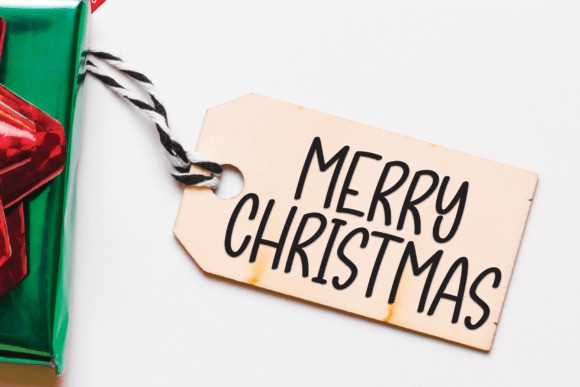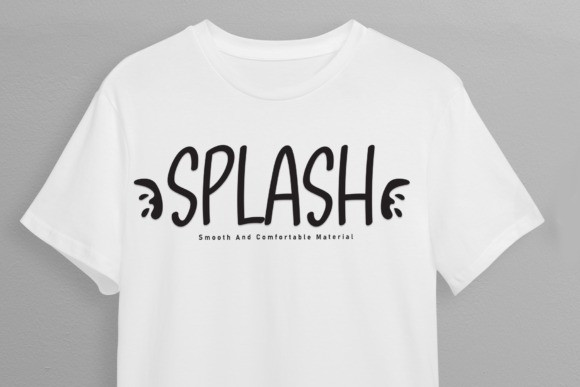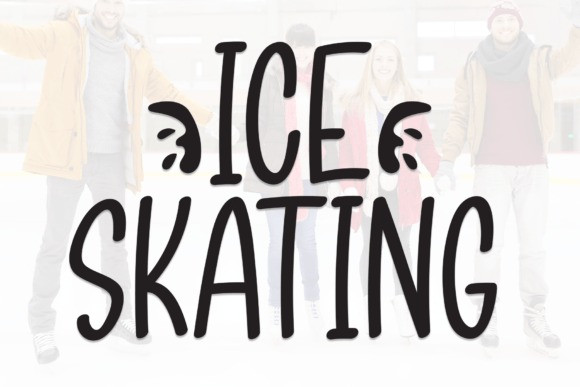
Ice Skating Font
Ice Skating Font is a sweet and friendly handwritten display font. Cute and fun, this font is ideal for writing wedding invitations, cards, or any other design that might need a fun touch!